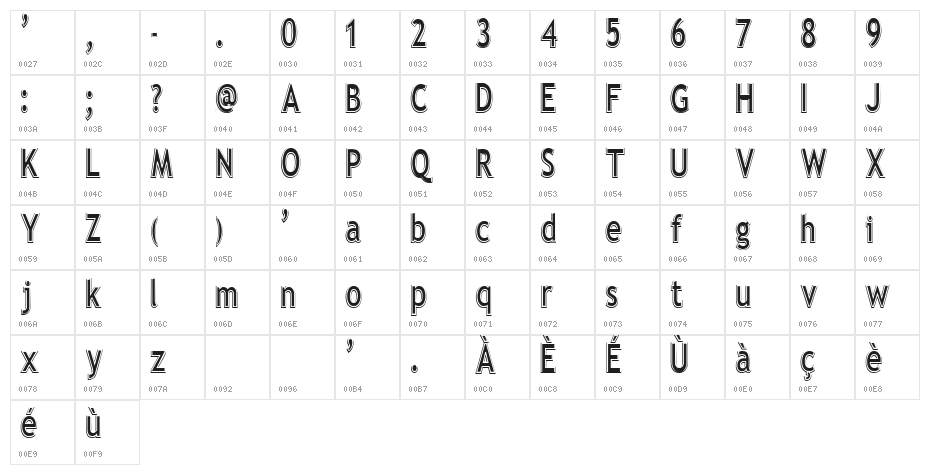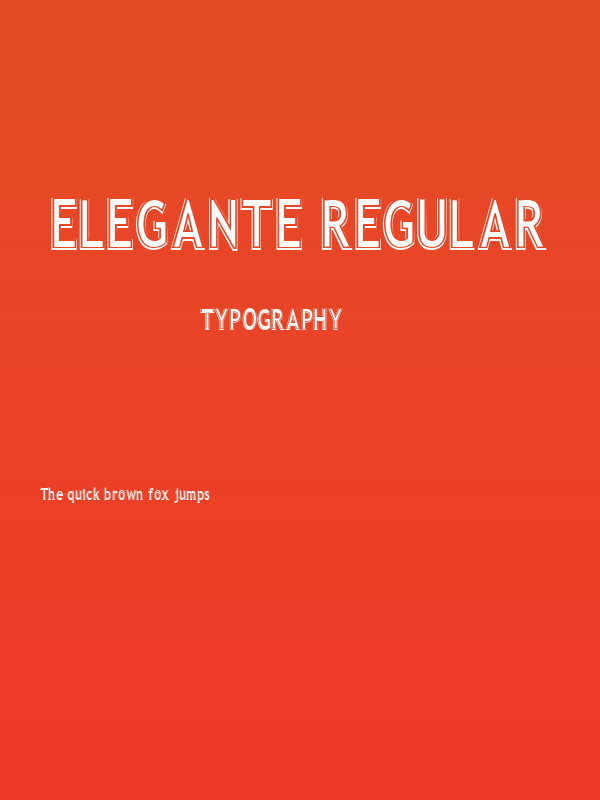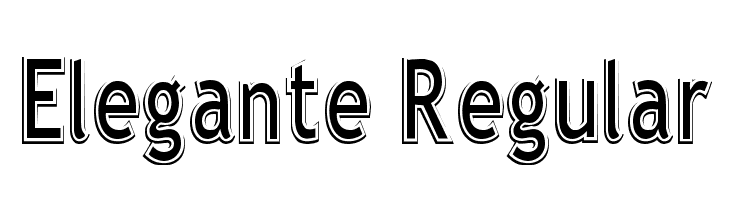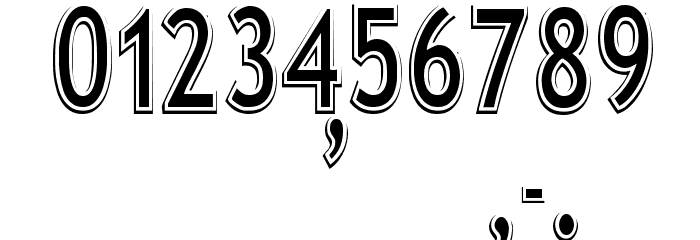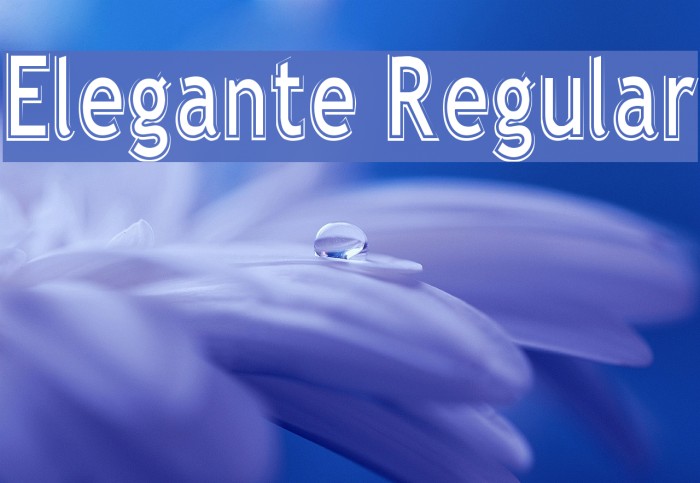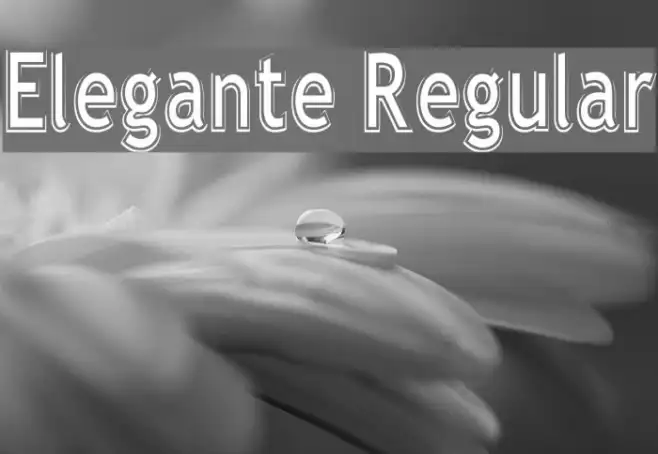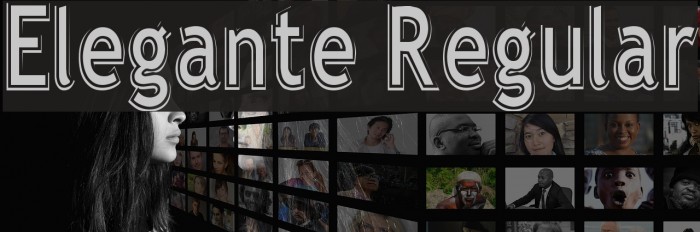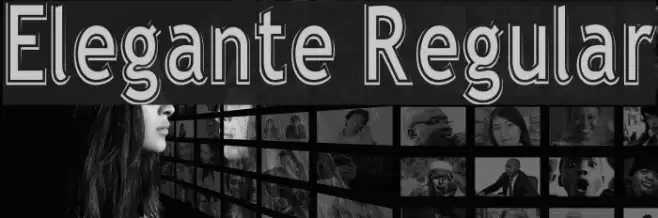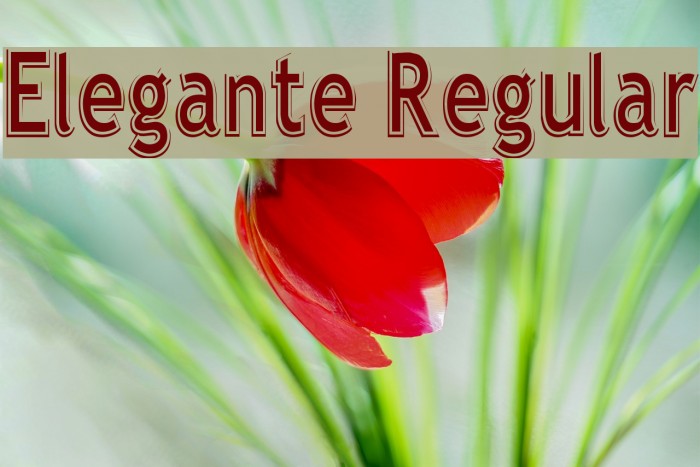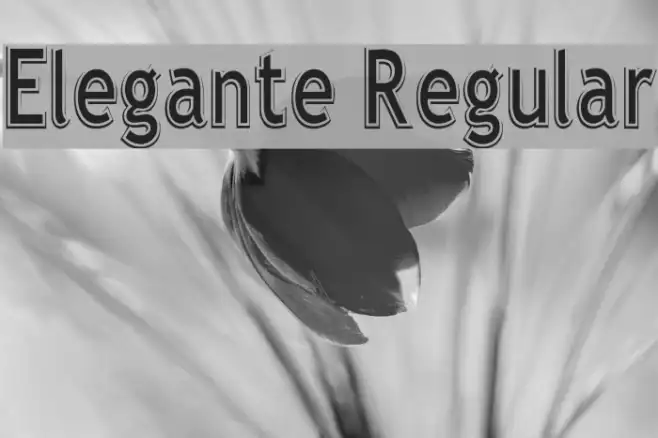
Elegante Regular Font
Elegante Regular Description
This font features a sophisticated and elegant design with a modern twist. The characters are outlined, creating a striking contrast between the bold outer lines and the inner space, which remains unfilled. This gives the font a unique, eye-catching appearance. The uppercase and lowercase letters maintain a consistent style, with smooth curves and sharp edges that enhance readability. The numerals and special characters are designed to match the overall aesthetic, ensuring a cohesive look across all text elements. The font's clean lines and contemporary style make it versatile for various design applications.
| Proposed Projects | Ideal for branding, logos, headlines, and editorial design where a modern and elegant look is desired. |